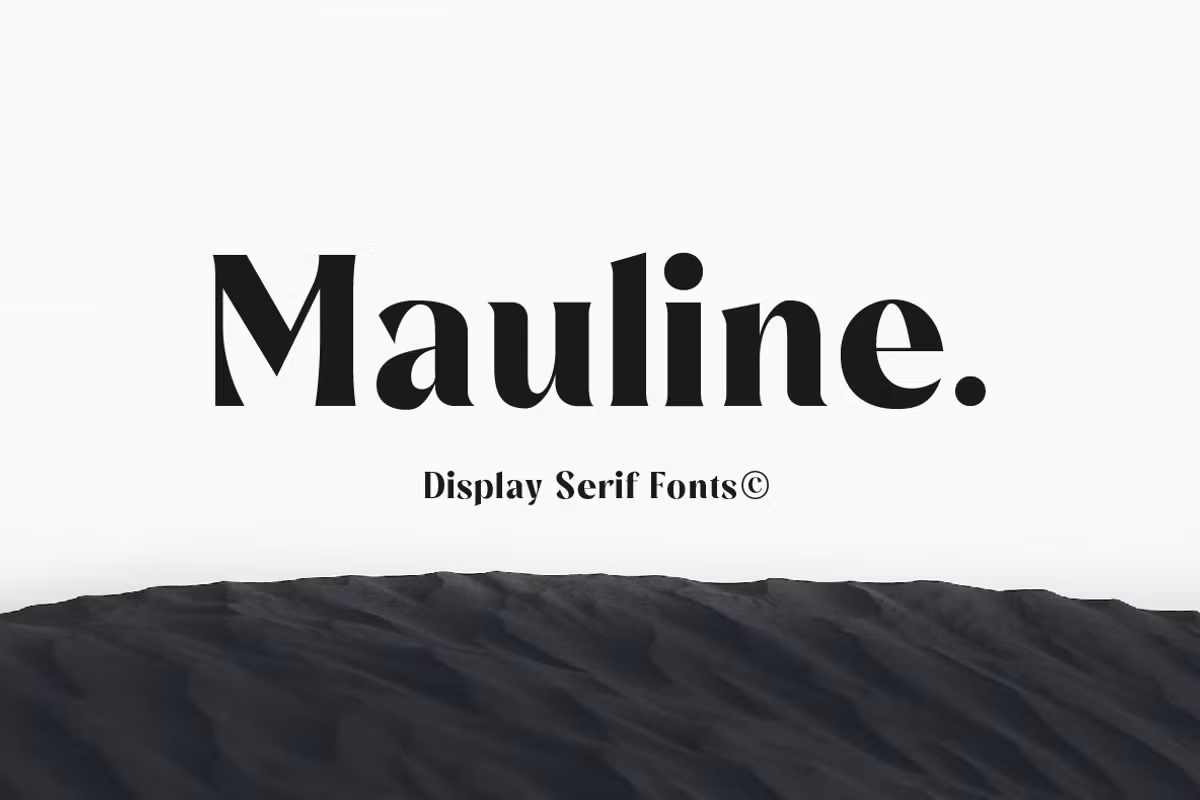
Mauline Display Serif Font Free Download is a bold and elegant serif typeface designed to make a statement in high-end branding, editorial design, packaging, and sophisticated digital content. With sharp serifs, striking contrast, and a fashion-forward structure, Mauline is perfect for luxury logos, magazine headlines, wedding invitations, and creative advertising.
This display font combines classic elegance with modern edge, making Mauline Display Serif Font Free Download ideal for projects that need a refined yet impactful visual identity. Its dramatic curves and well-balanced proportions give it both beauty and presence on the page or screen.